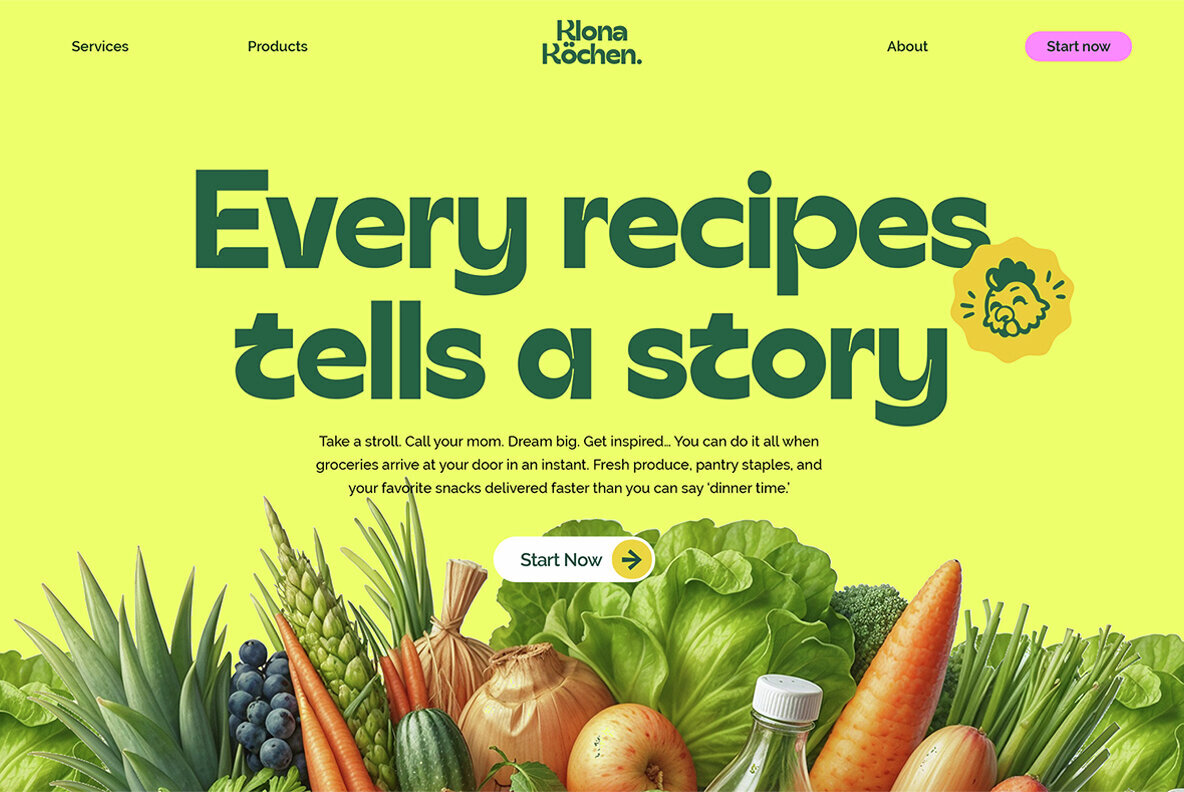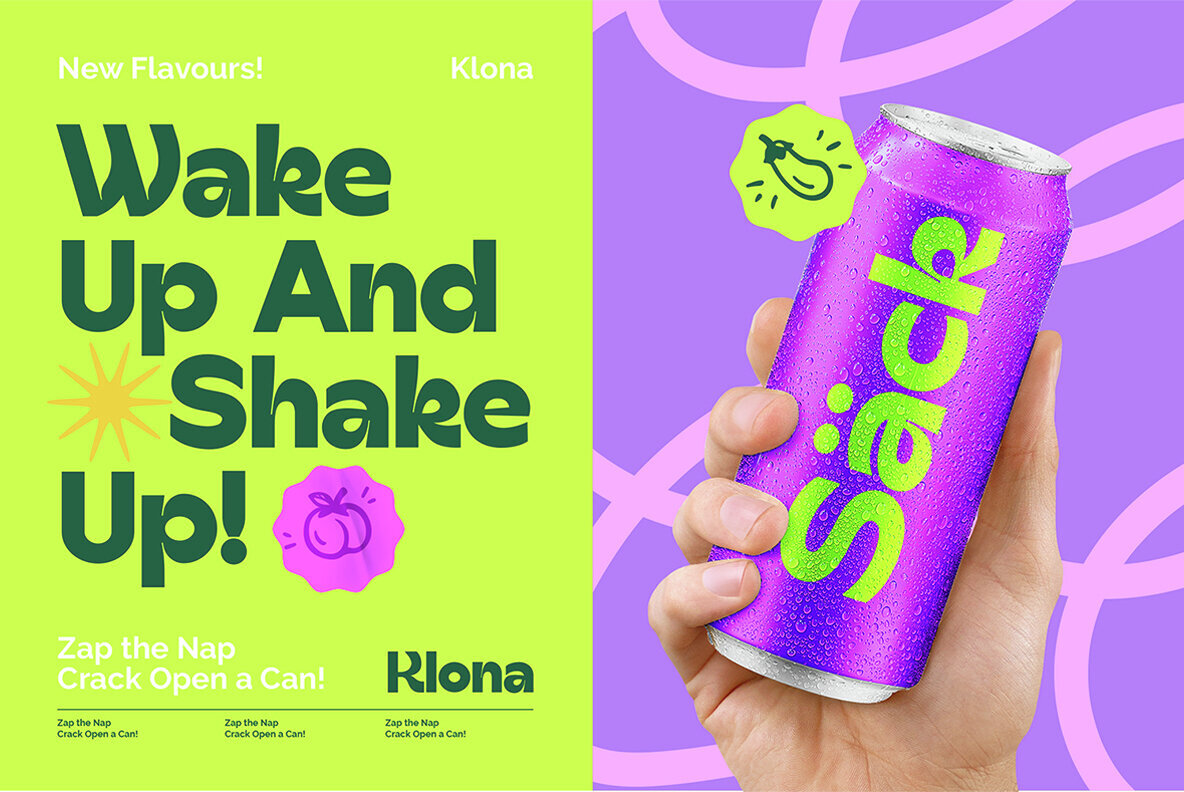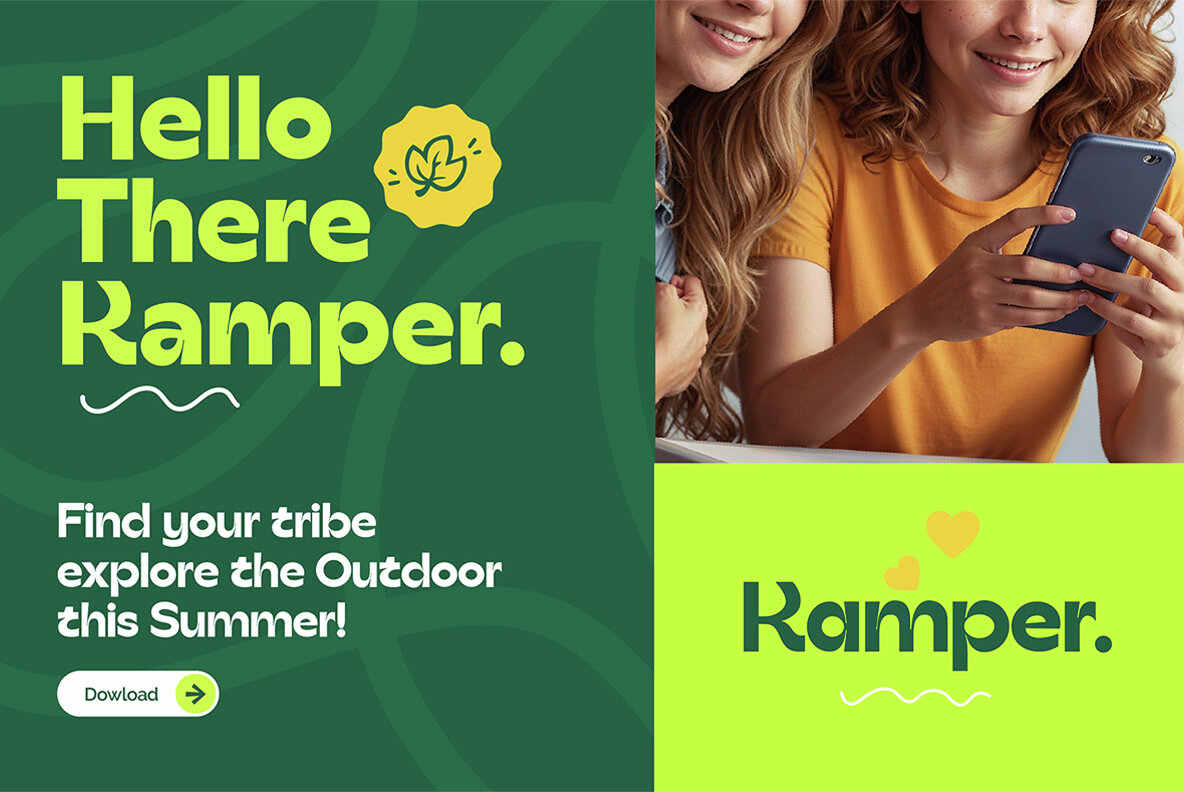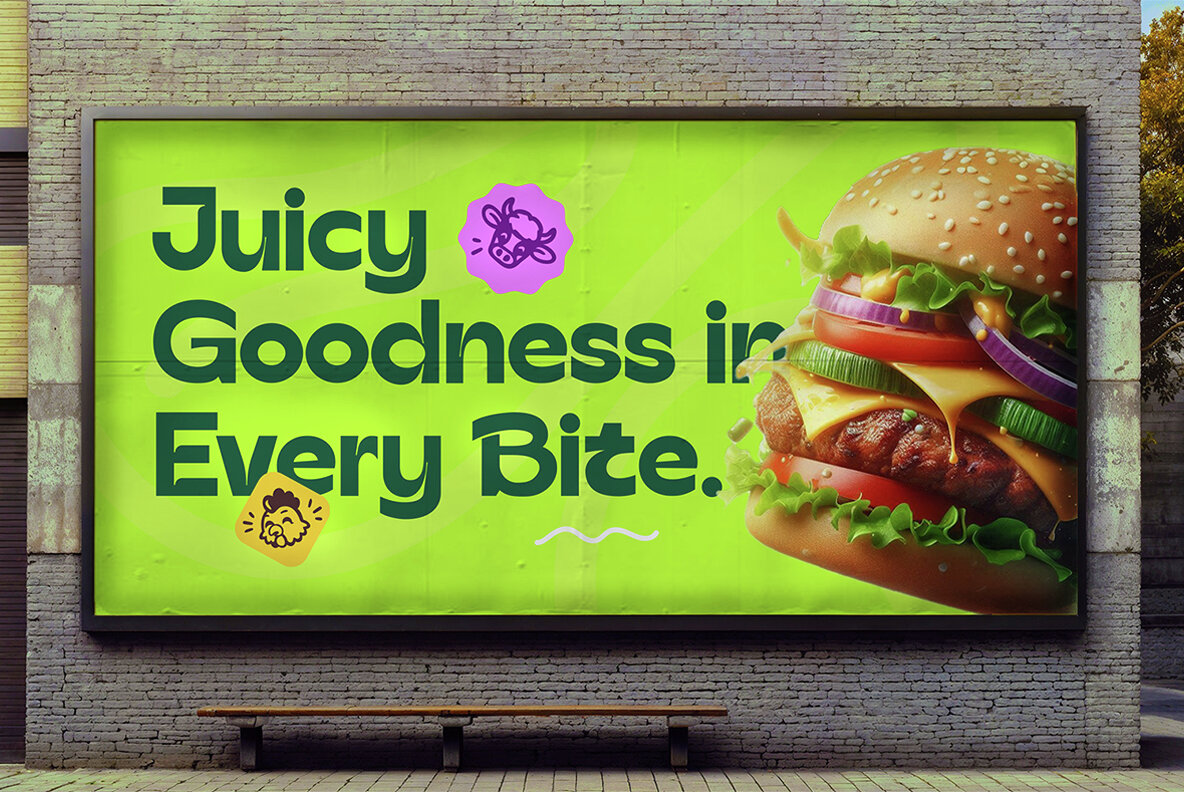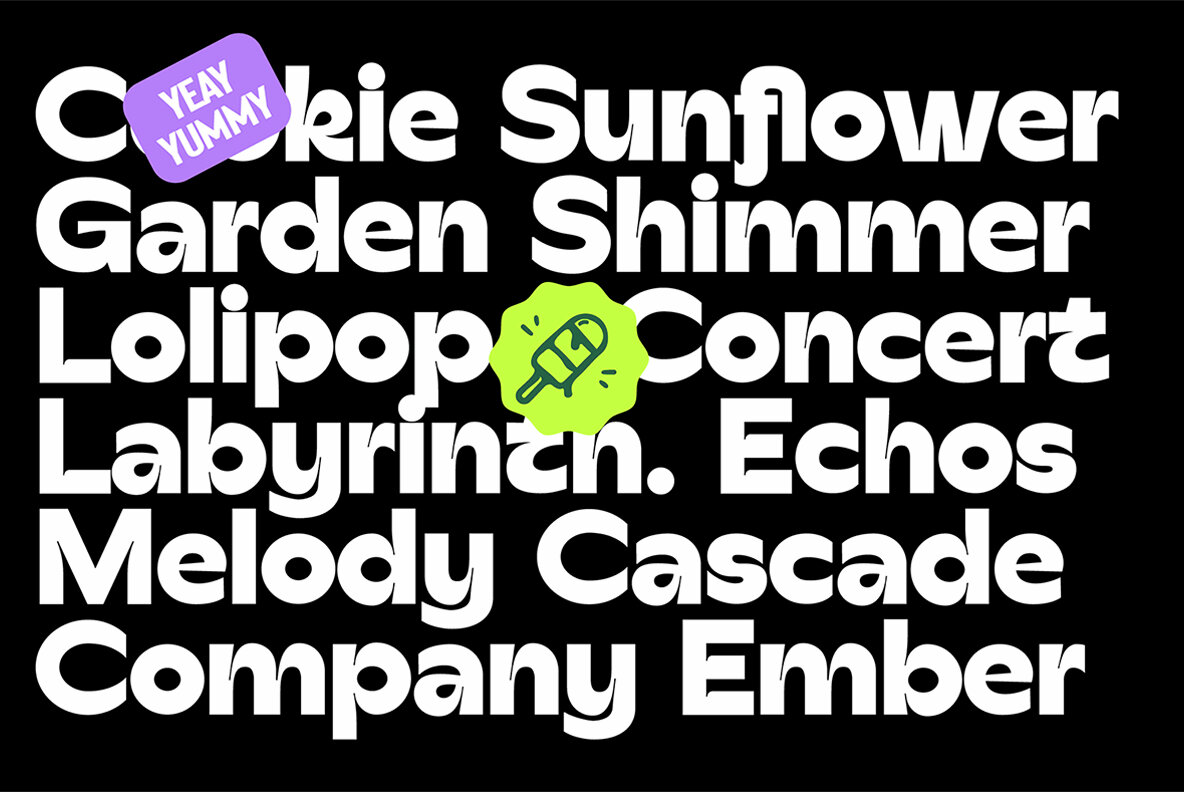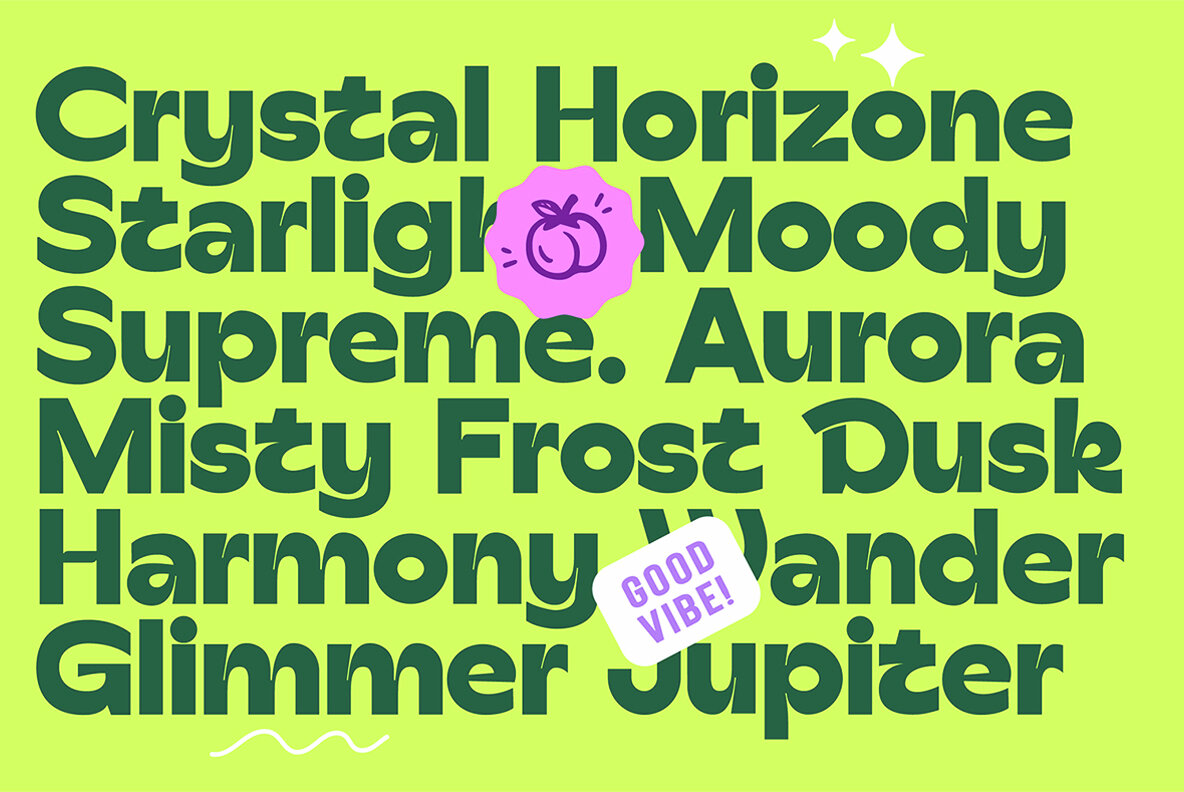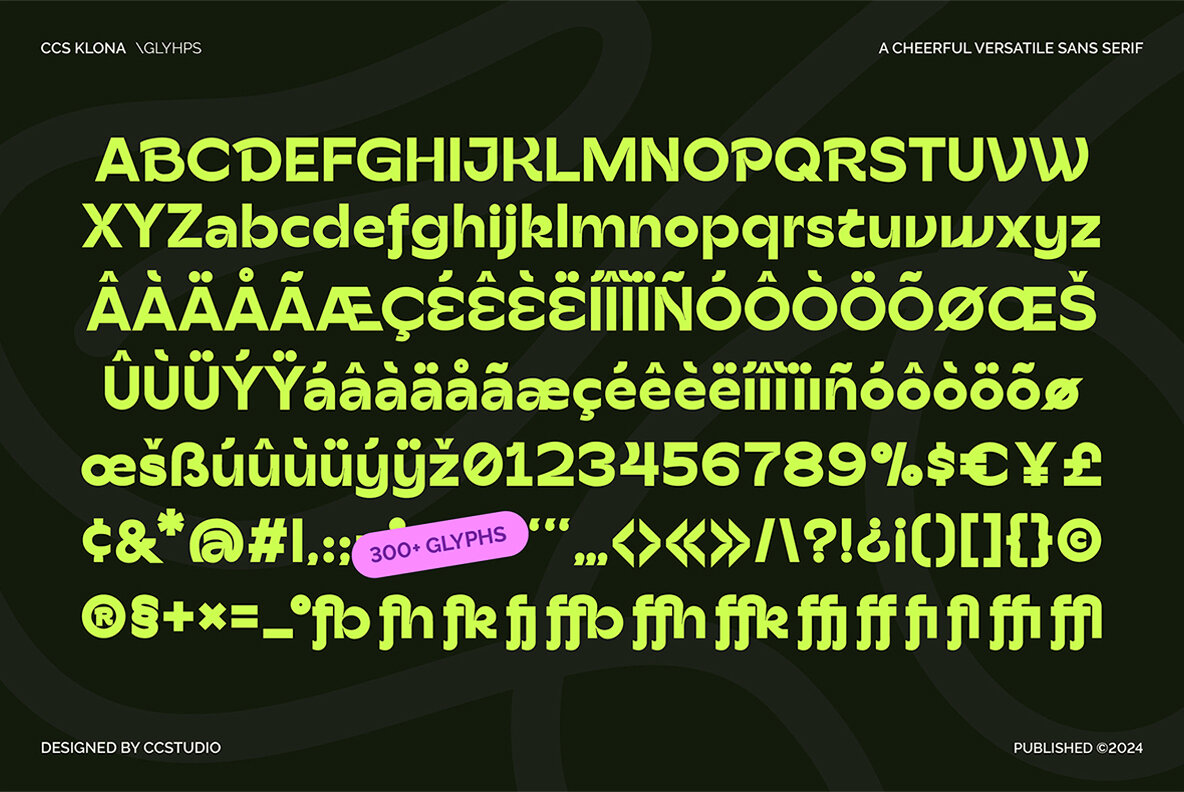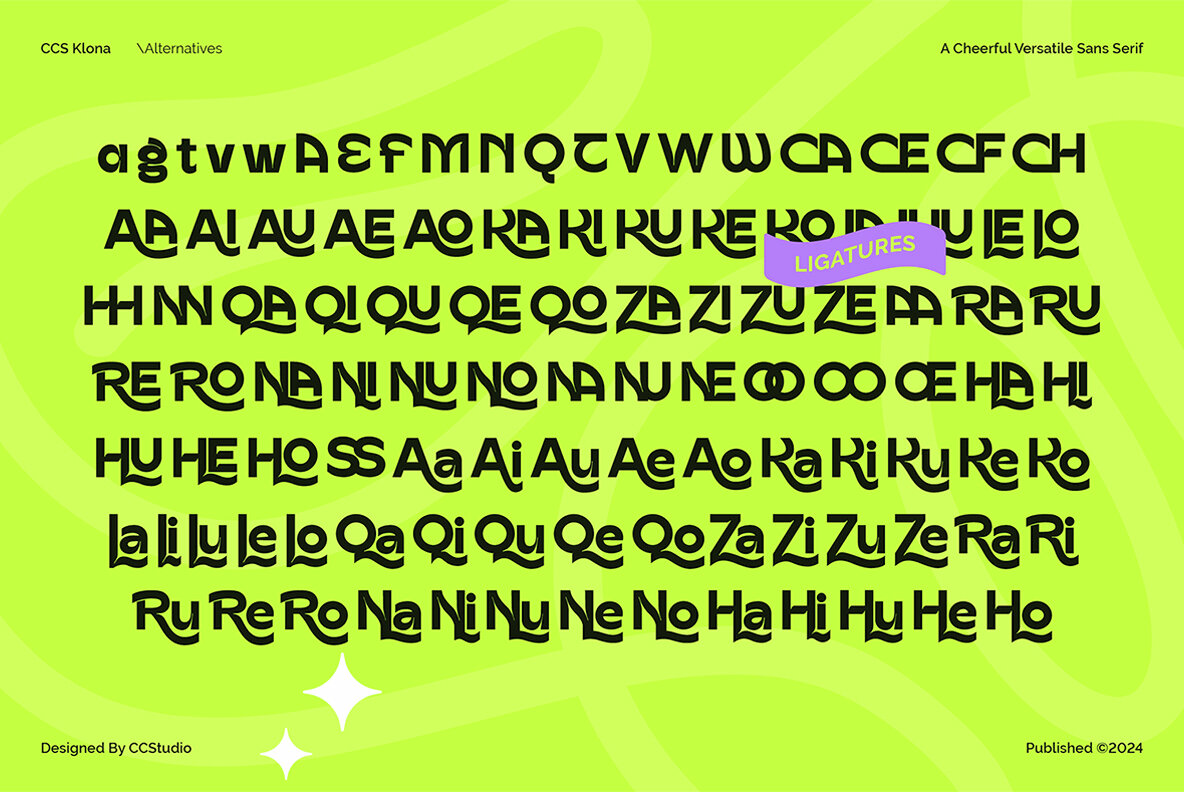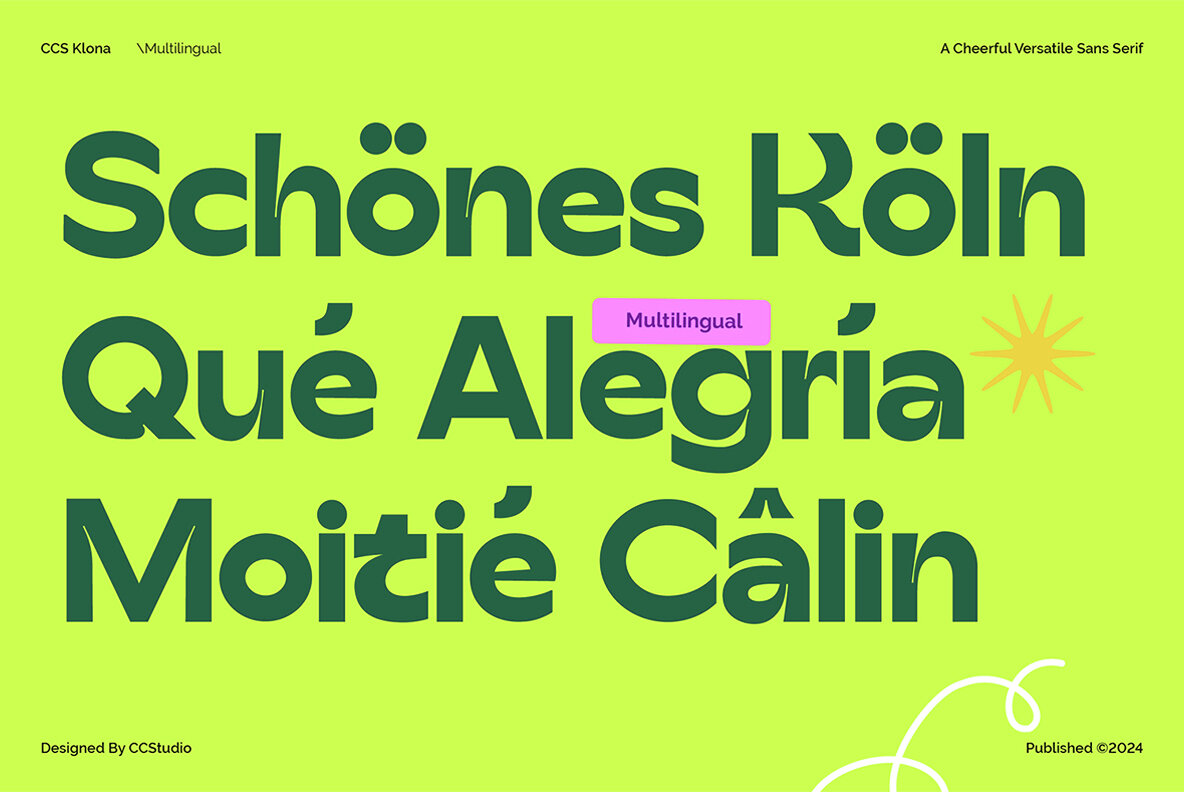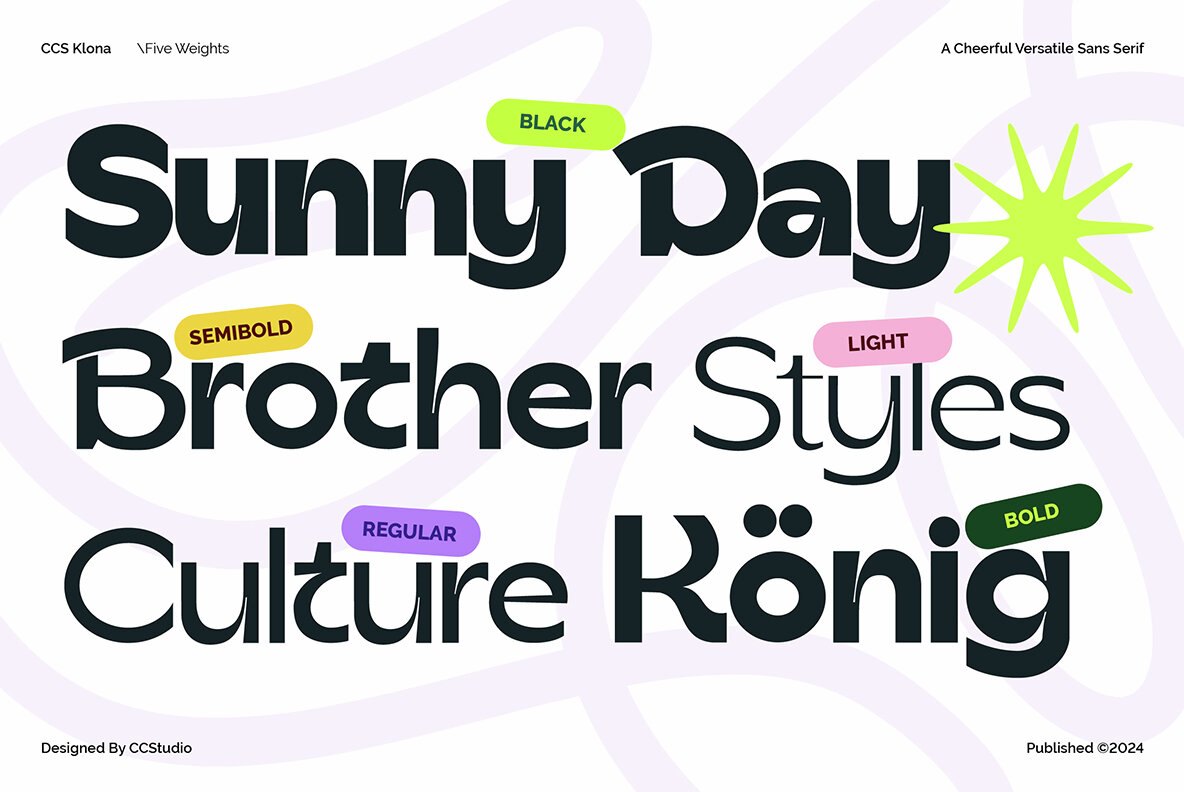
Klona Font
Klona is a versatile sans-serif font that infuses joy and friendliness into any design. Its bold and extended style makes it perfect for branding, logos, and websites. With five distinct weight variations and an extensive character set, including a plethora of ligatures, this font provides exceptional flexibility. It caters well to both impactful headlines and nuanced body text, enhancing your projects with its cheerful personality.
Klona's features include stylistic alternates and multilingual support, allowing for a wide range of creative applications. To access alternate characters, use the glyphs panel found in design software like Adobe Photoshop and Illustrator. This functionality ensures that your design work can be as unique and personalized as necessary, leveraging Klona's full capabilities.